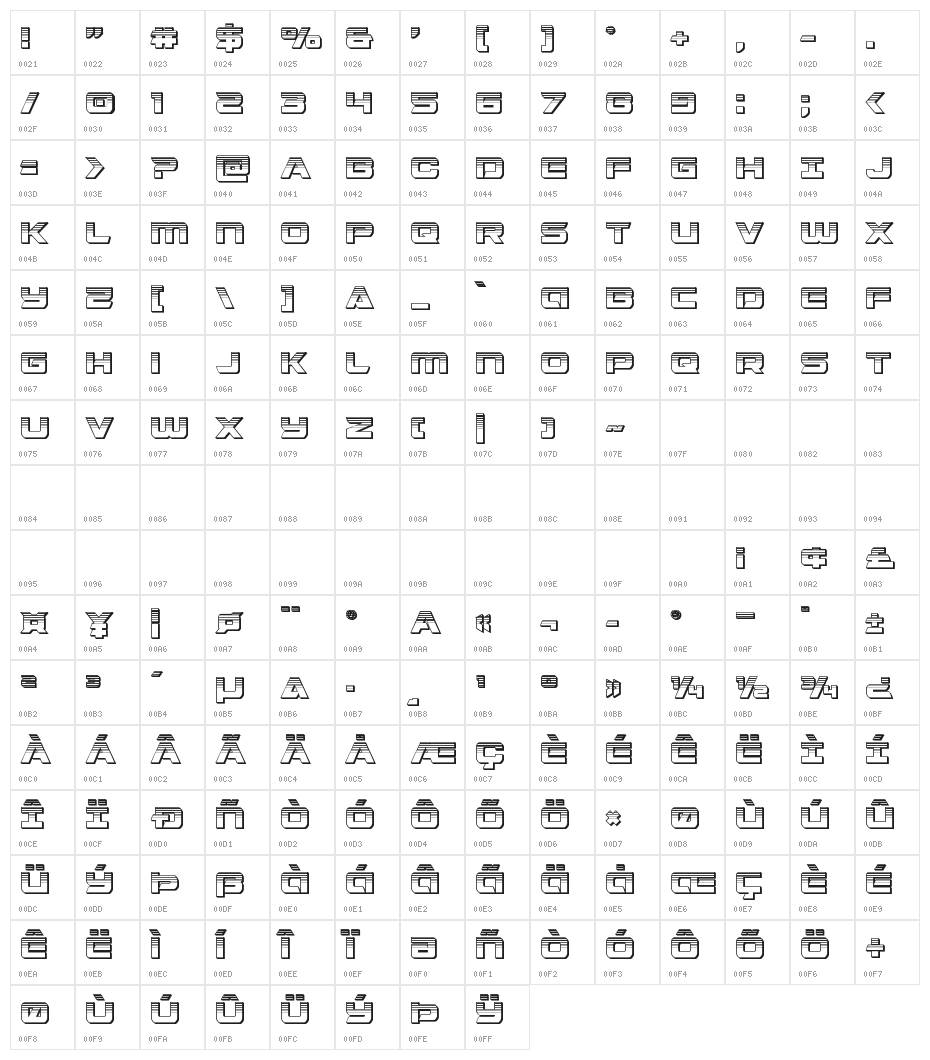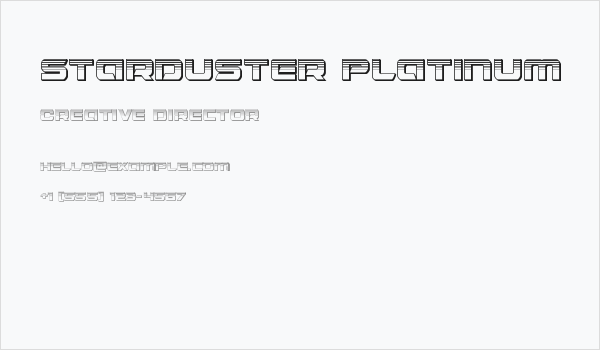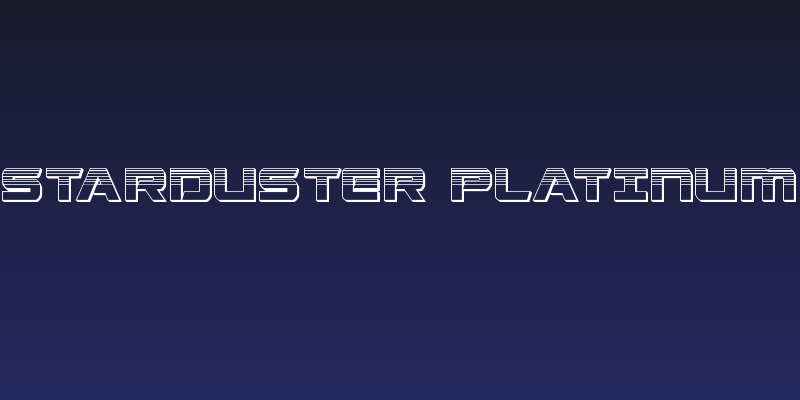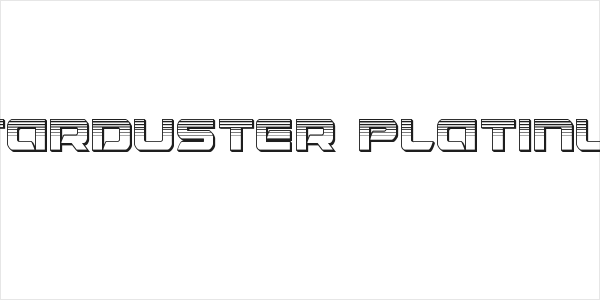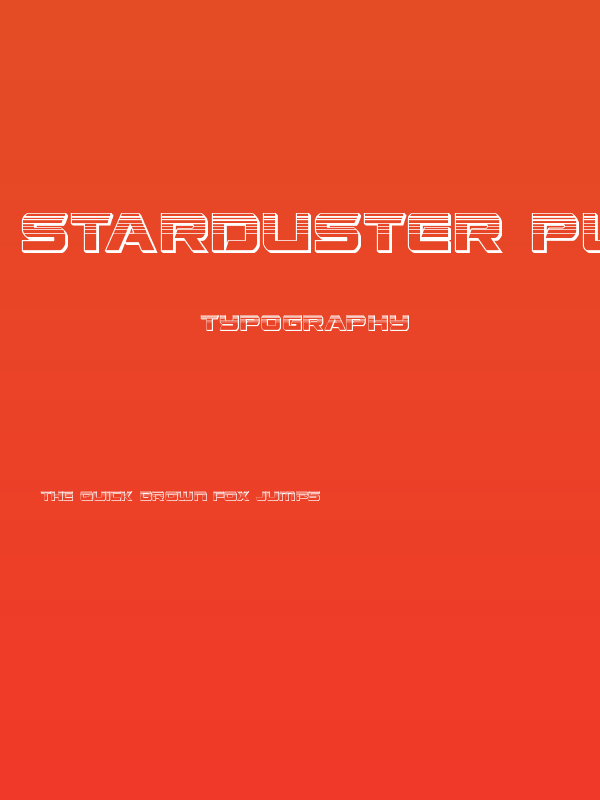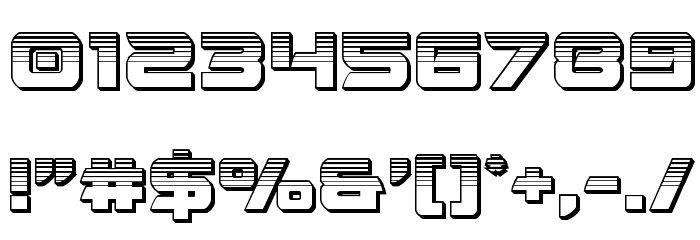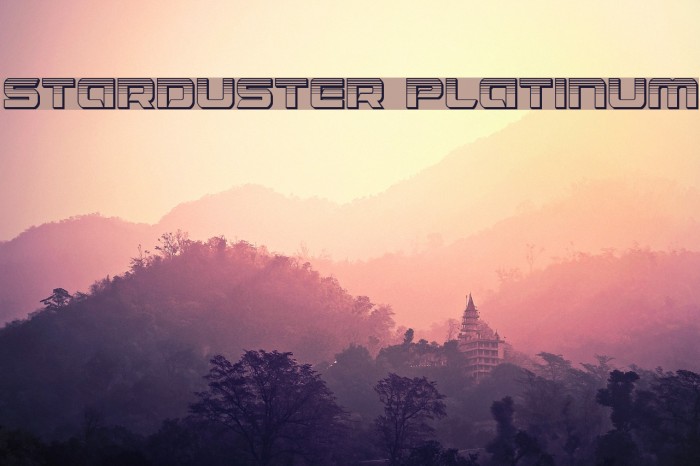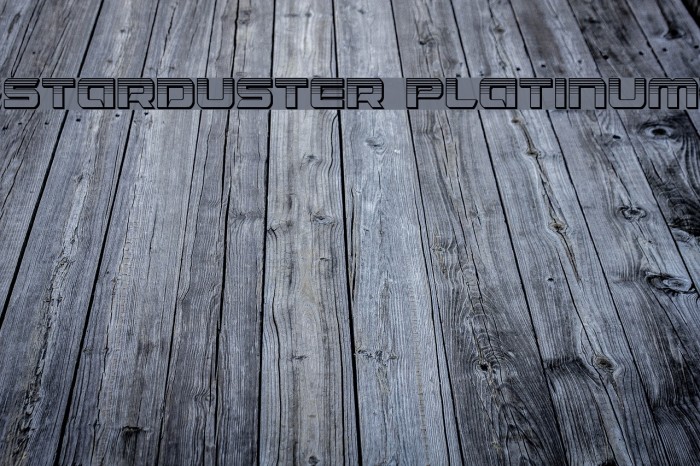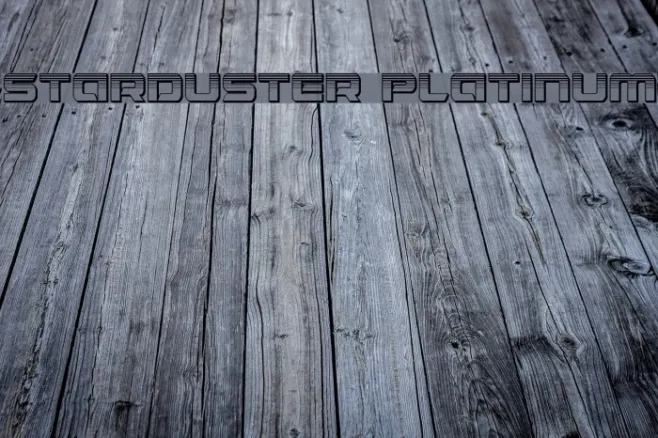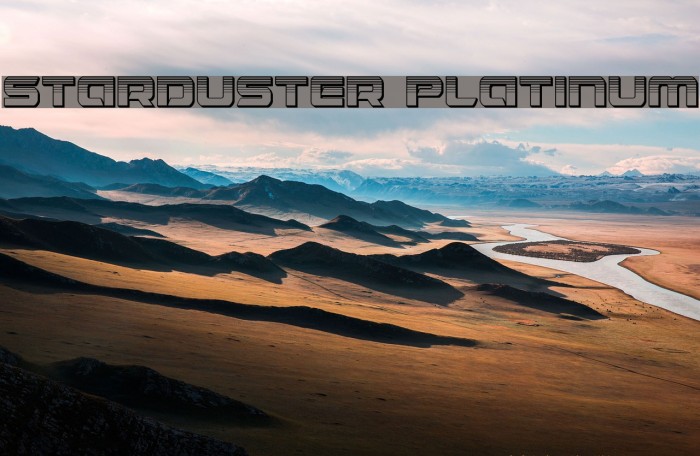
Starduster Platinum Font
Starduster Platinum Description
This font features a futuristic and geometric design, characterized by its bold, outlined letterforms. Each character is constructed with a series of parallel lines that create a sense of depth and dimensionality. The uppercase and lowercase letters share a consistent style, with angular edges and a uniform stroke width that gives the font a cohesive look. The numerals and special characters are designed to match the angular and outlined aesthetic, making the font suitable for digital and modern themes. Its unique style makes it stand out, ideal for projects that require a bold and eye-catching typeface.
| Proposed Projects | Ideal for sci-fi themed posters, video game titles, tech branding, and futuristic event invitations. |